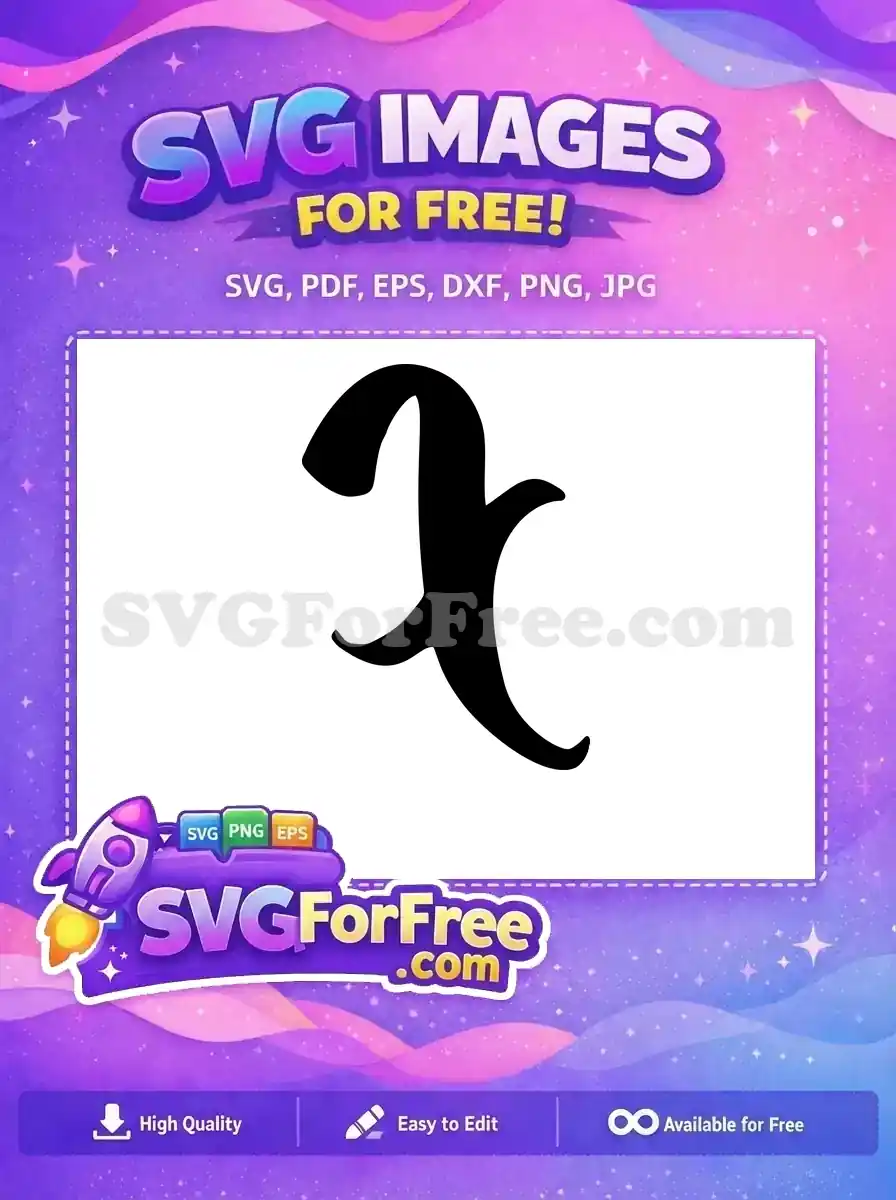
Free Swirl Font Free Letter Initial Monogram Free SVG – Instant Download
This free graphic shows a bold, handwritten letter ‘x’ composed of two separate, thick, curving strokes.
Free Swirl Font Free Letter Initial Monogram Free SVG